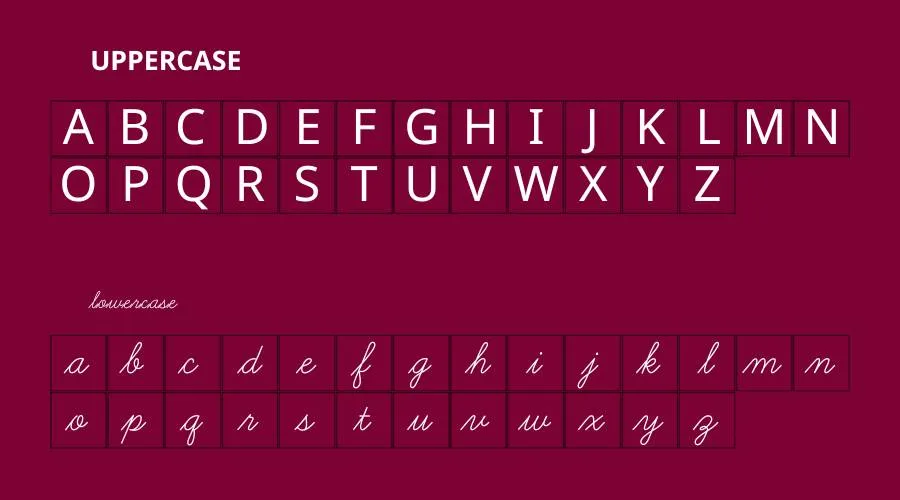
Learning Cursive Font
About Learning Cursive Font
The learning cursive font is a popular handwritten texture, it is available in a free version for special types of purposes. This stunning texture was invented by Jess Latham with x-hight and luxury texture appearance. It contains multiple unique types of styles and weights such as Regular, Italic, Bold, Dings & Dashed.